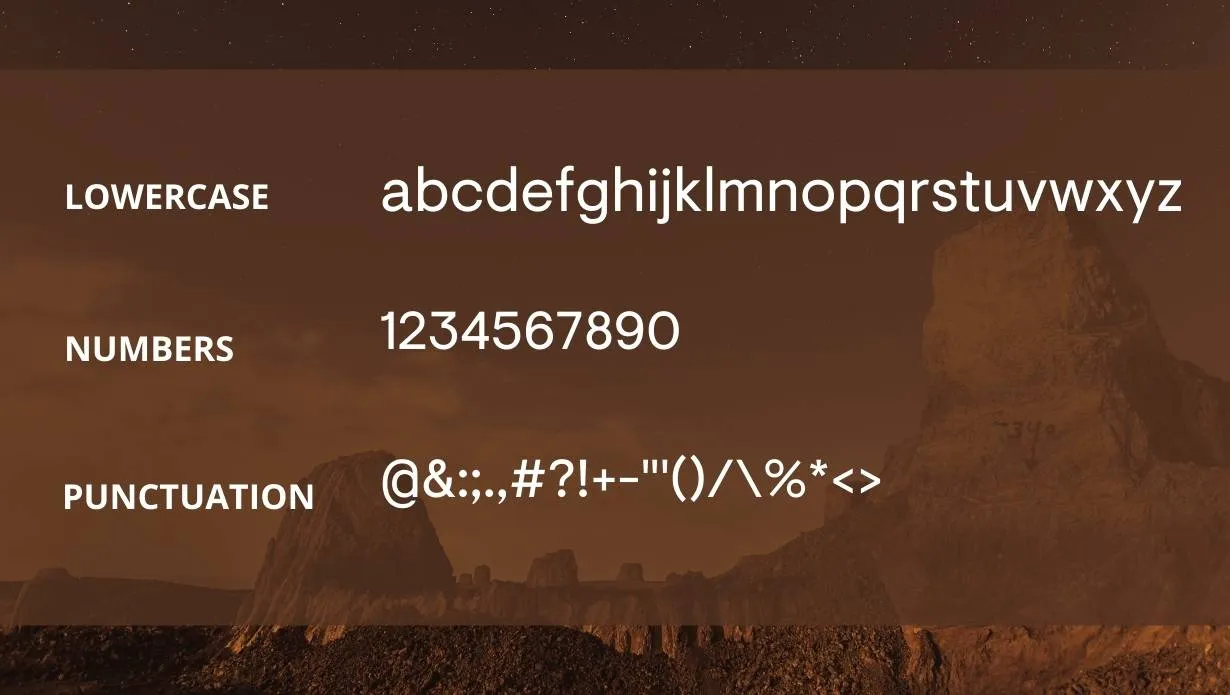
Visuelt Font is a sans-serif font designed by Rasmus Koch and published through Indian Type Foundry. The family has 8 weights, from thin to black, with matching italics. It is intended for display use, both onscreen and in print. This Font is a good choice for headline text, as well as larger body text settings. The font has a modern, clean look and feels, with crisp lines and minimal embellishments.
| Designer | Rasmus Koch |
| Category | Sans Serif |